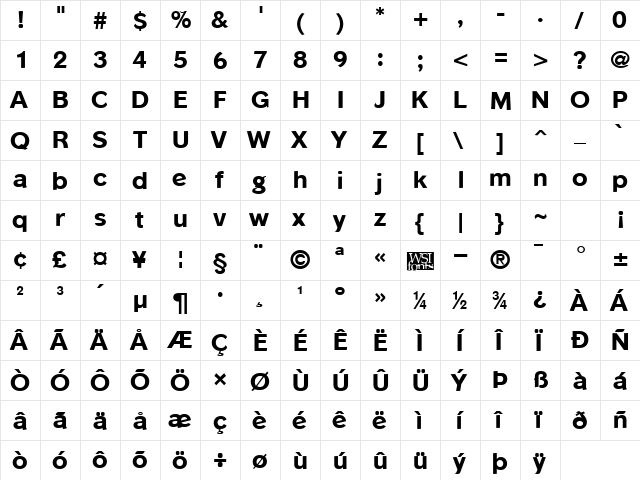
PhinsterExtrabold Regular
Design Context for PhinsterExtrabold Typeface
PhinsterExtrabold takes a measured approach to typography — its balanced proportions and neutral character make it a reliable workhorse for both digital and print work. Its bold stroke weight gives it real presence on the page.